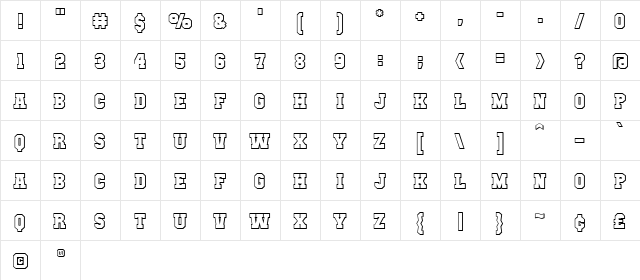
Mutant Academy DC BB Regular
| Foundry | Nate Piekos. Blambot.com |
| Designer | Nate Piekos |
Design Context for Mutant Academy DC BB Typeface
Mutant Academy DC BB takes a measured approach to typography — its balanced proportions and neutral character make it a reliable workhorse for both digital and print work.